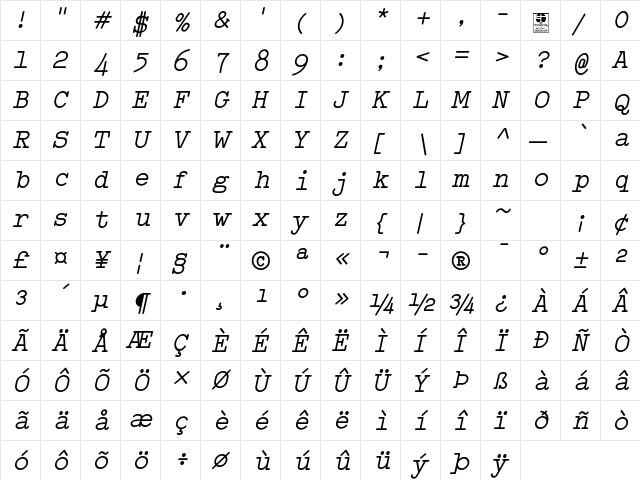
Typo Writer Demo Italic Font Preview
Typo Writer Demo Italic
Typo Writer Demo Italic Font Details
| Foundry | StudioTypo |
| Designer | MEHMET ABACI |
Design Context for Typo Writer Demo Typeface
Typo Writer Demo offers clean, dependable letterforms without strong stylistic allegiance, making it a practical choice for designers who need flexibility. Its italic angle brings a sense of urgency and motion to the letterforms.
Pro Tip: Use Typo Writer Demo for emphasis, pull quotes, and subheadings where its slanted energy can add rhythm to the layout.